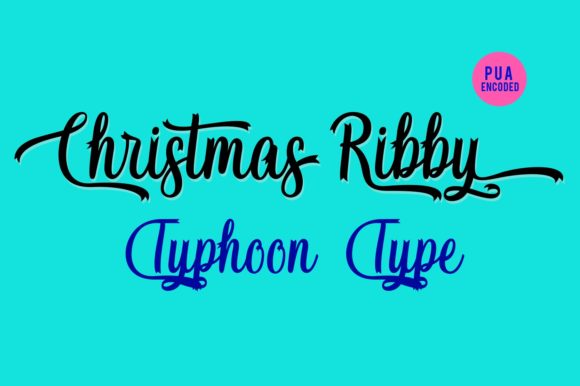
HomeScript FontsChristmas Ribby Font Script Fonts Christmas Ribby Font FacebookXPinterestWhatsApp About Christmas Ribby Font Christmas Ribby is a friendly handwritten font. It will add a romantic touch to any crafting project. DOWNLOAD ON CREATIVE FABRICAThis font is sold and delivered by Creative Fabrica. Font Canyon may earn a commission if you buy through this link. People also explored Marvin Black Sweety Font Know What She Want Font Leto One Font Exquisite Font Sketchy Font Judezt Font Summer House Font Nado Font 274 0 TagsChristmas Ribby Font Previous articleGloretha FontNext articleReindeer Christmas Font LEAVE A REPLY Cancel reply Comment: Please enter your comment! Name:* Please enter your name here Email:* You have entered an incorrect email address! Please enter your email address here Website: Save my name, email, and website in this browser for the next time I comment. Personal Use Free Anti Personal Use Free Read more about this font Concrete Wall Personal Use Free Read more about this font Wondery Personal Use Free Read more about this font Font Slice Personal Use Free Read more about this font BLOG How to Cut Any Font on Cricut: Convert a Font to SVG (Free) Turn any font into a clean SVG so it cuts crisp on Cricut - a quick 3-step workflow using a free font-to-SVG tool. To increase your work productivity, choose the most readable fonts. How to Install and Use Fonts on Windows, macOS, and Web Projects Top 10 Handwritten Fonts That Elevate Your Designs